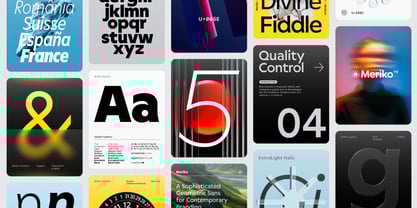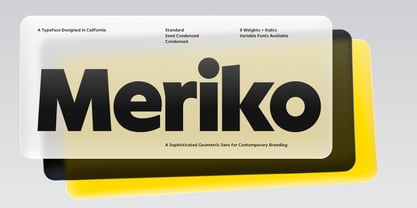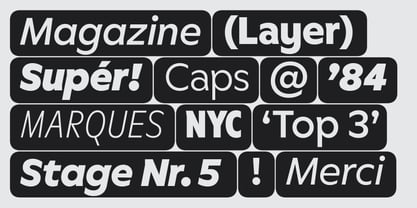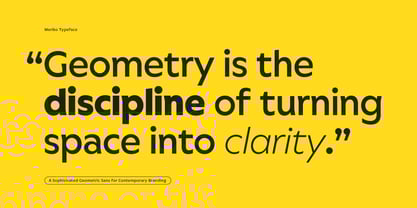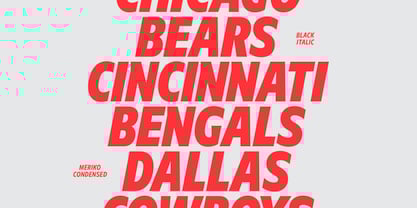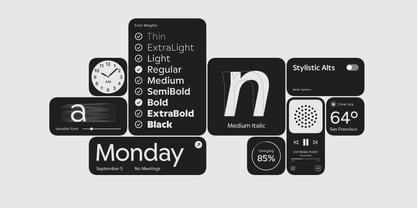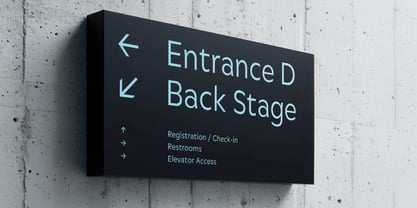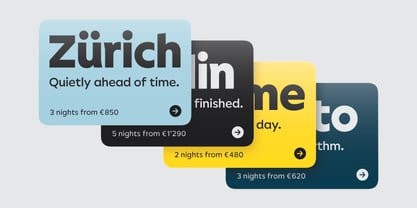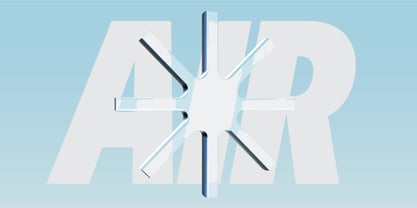
Meriko
by Juri Zaech
The Meriko Font Family was designed by Juri Zaech and published by Juri Zaech. Meriko contains 56 styles and family package options. More about this family
Meriko is a sophisticated geometric sans made for branding and interface design—a clean, workhorse family available in nine weights and three widths. So much of today’s visual identity work relies on this genre. Here’s why Meriko stands apart, even while belonging to it. The typeface positions itself as a unique alternative for modern branding projects spanning technology, culture, and commerce—from digital products to print environments and spatial applications. Whether for a fresh tech start-up or an established financial institution, Meriko has the universal appeal to command authority and holds enough unique character to carry a memorable brand. The most prominent design feature in Meriko is the angled terminal of its stems. They appear in letters such as a, d, n, and m, lending the design a sharp accent. It’s a detail that introduces a subtle touch of brutalism while remaining refined enough to preserve the clean look of a geometric sans. A neat detail: in the italics, the angled terminal renders perfectly vertical. Another defining choice is the vertically cut finials in letters like a, c, e, f, and s. Beyond setting the typeface apart from the mass of geometric and grotesque fonts, it achieves a nicely compact and clean texture—especially on the bold side of the spectrum. The complete type family consists of three widths: the Standard, with its circular forms representing the most typical expression of the genre; the Semi Condensed, offering a space-efficient alternative; and the true Condensed, which optimizes space while maintaining the family’s clarity and character. In addition, Meriko includes a range of OpenType features, such as stylistic alternates for Q, a, and y; tabular lining figures, a slashed zero, and automatic fractions for numerical applications; case-sensitive forms; and ligatures. The family of 54 fonts also comes in two variable fonts, one for the uprights and one for the italics.